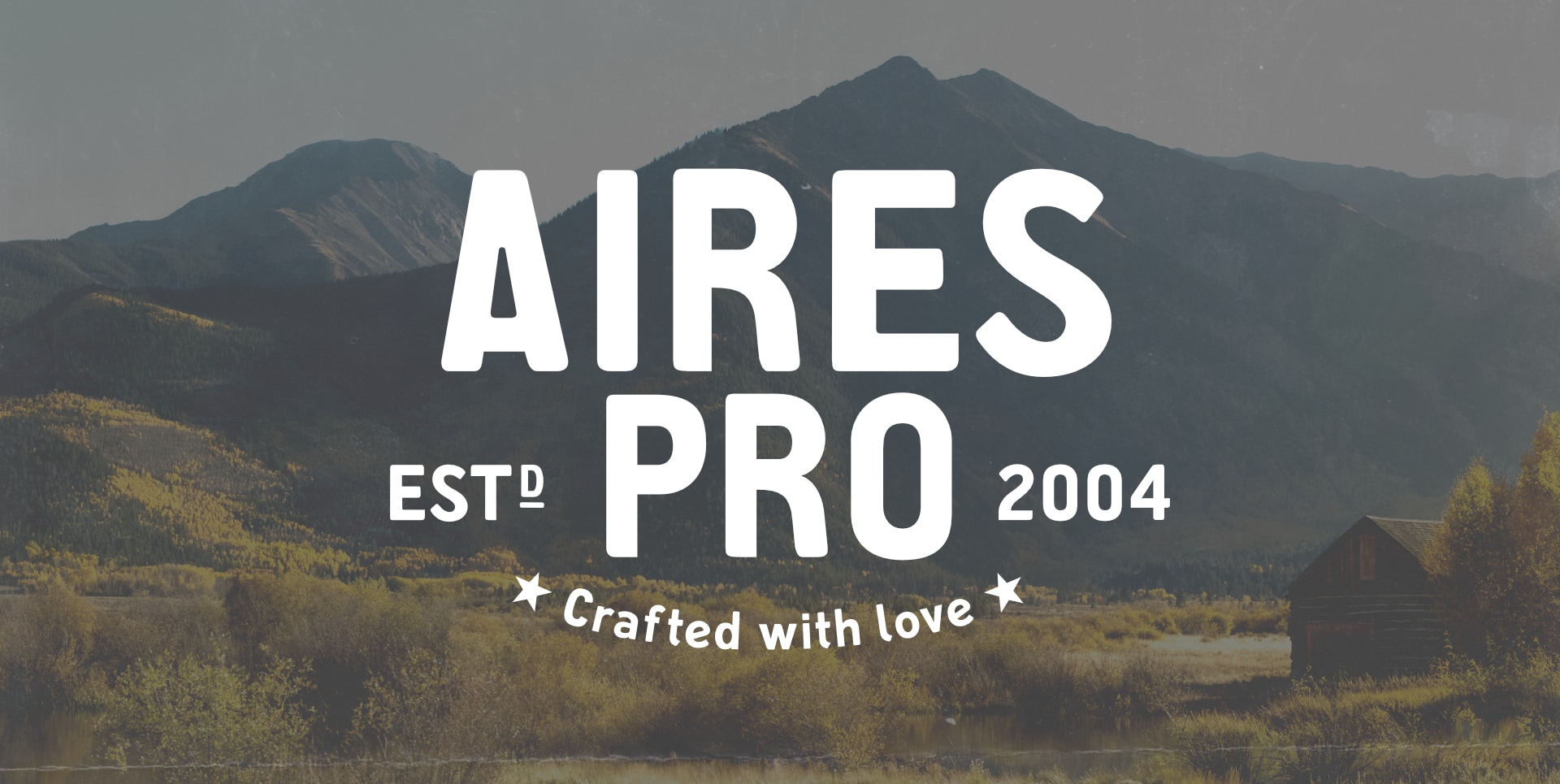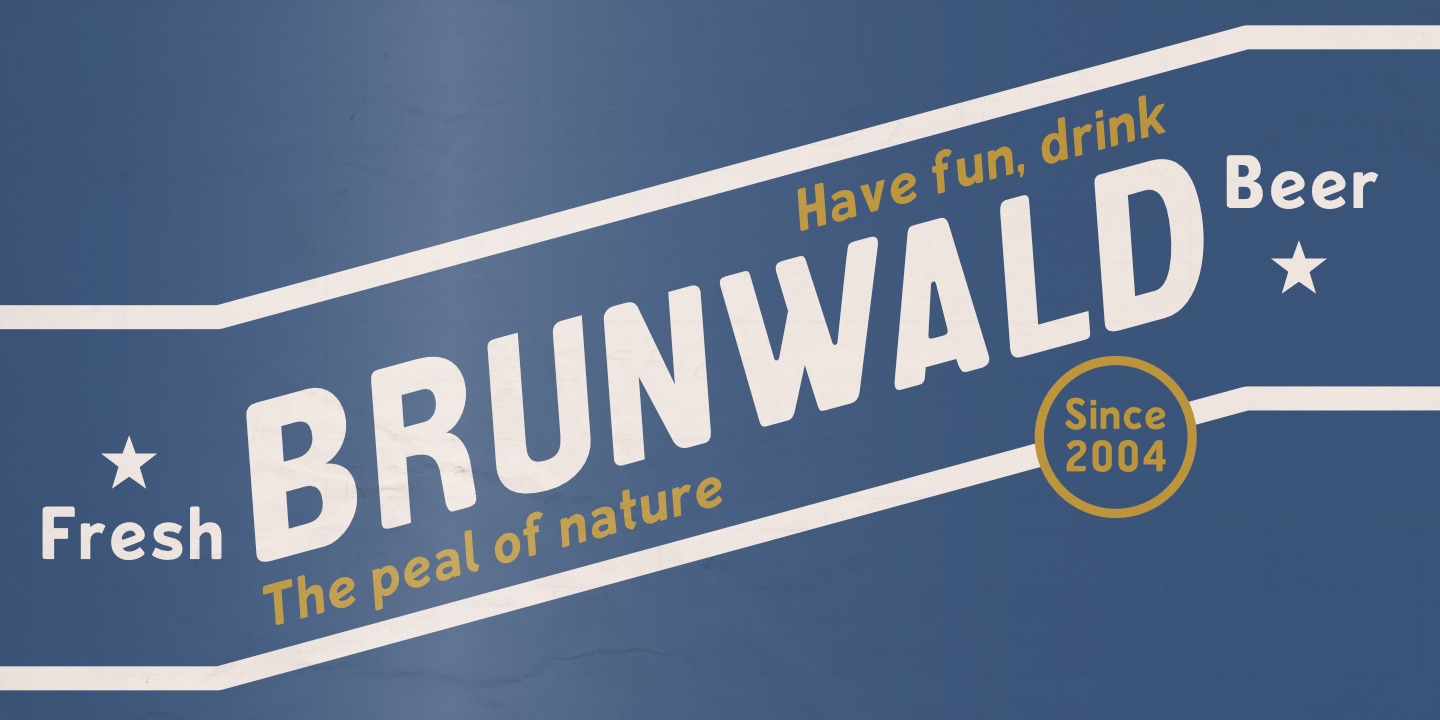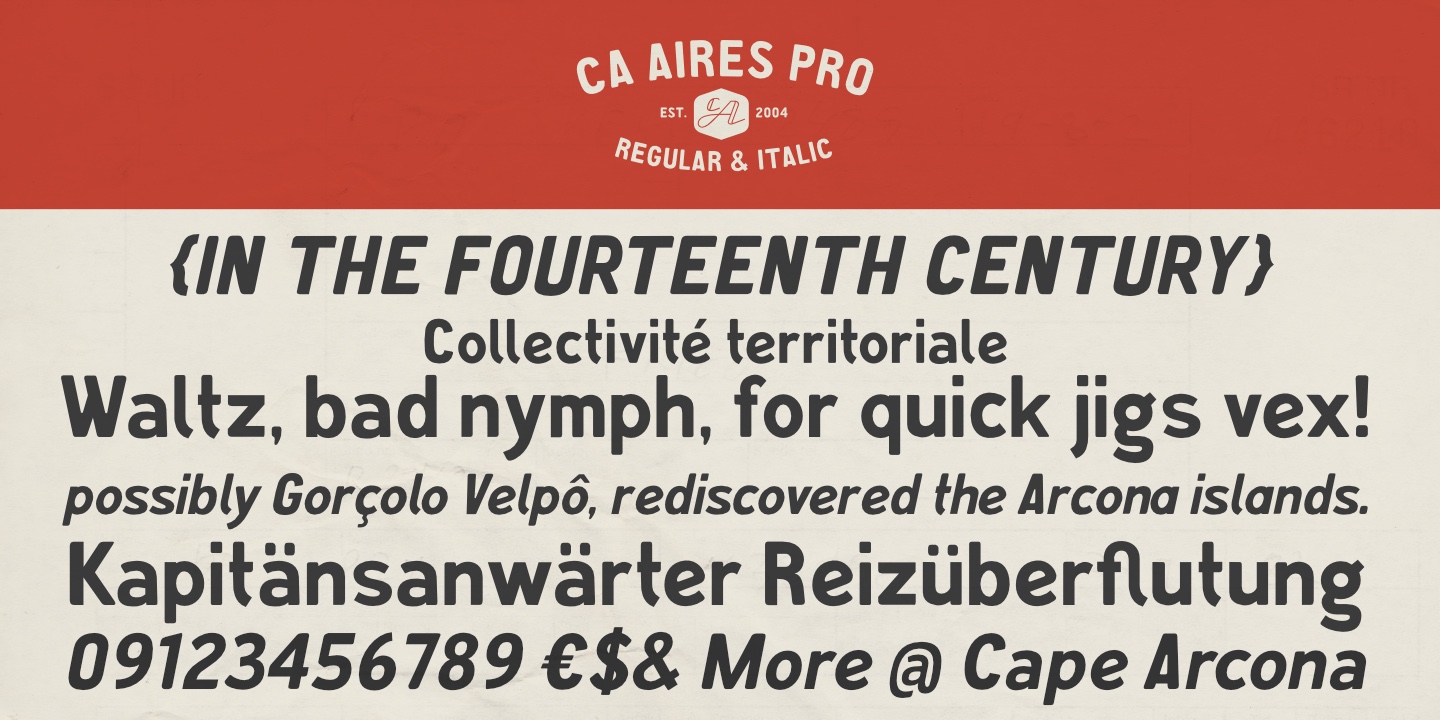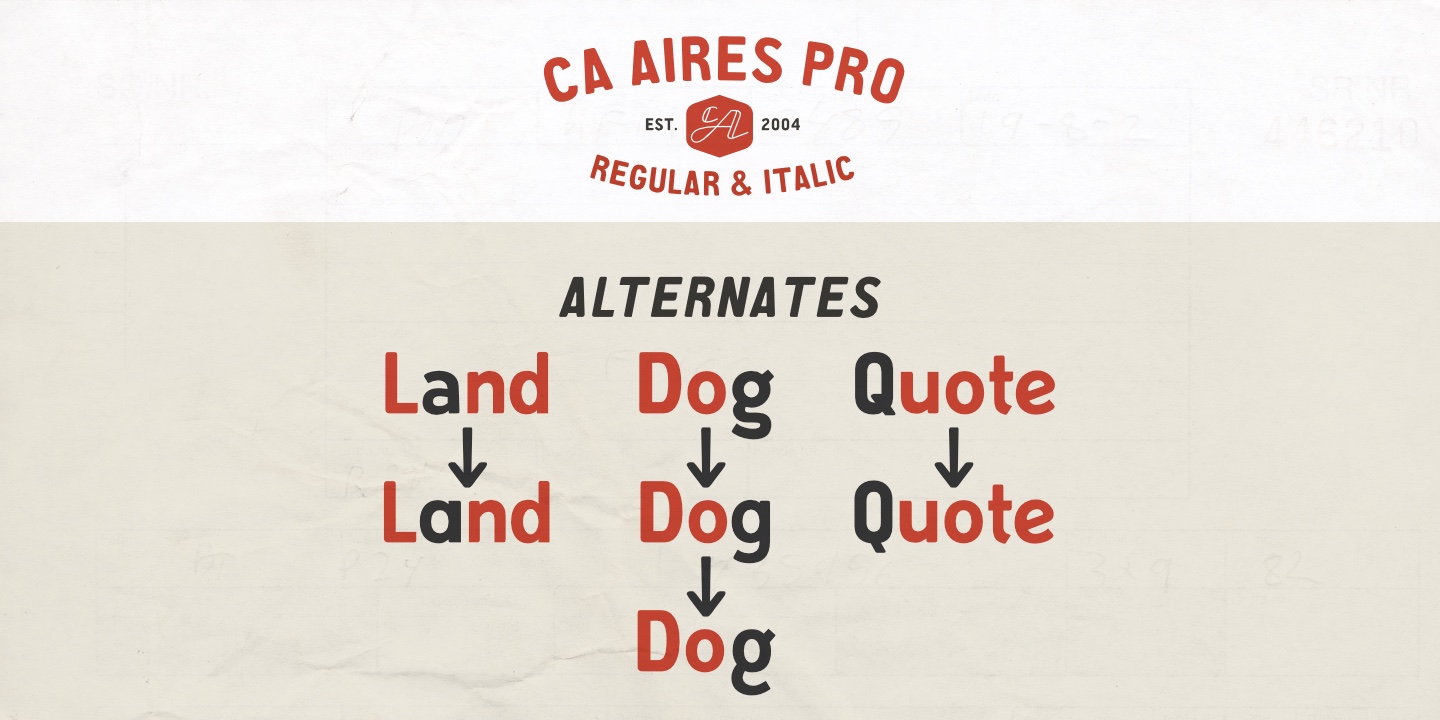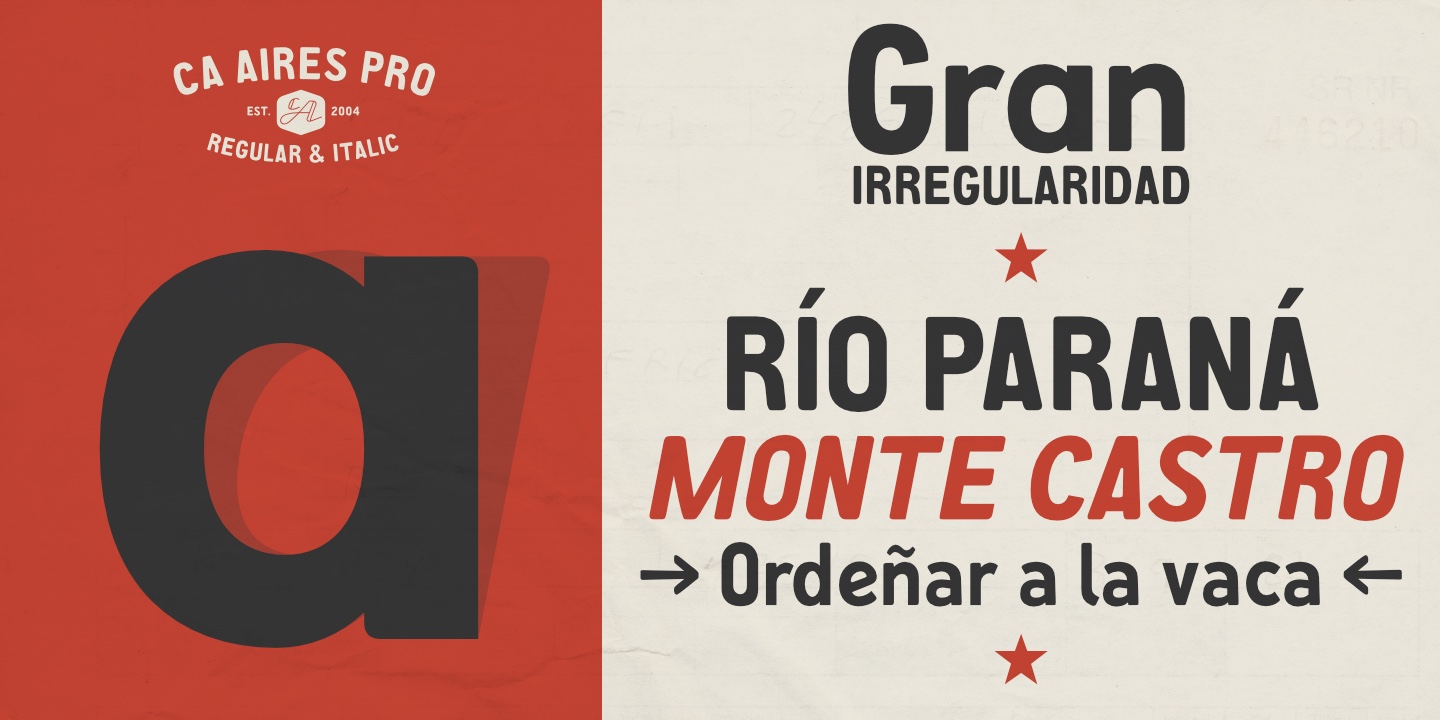
CA Aires Pro draws its inspiration from a 1930s postcard. The simple yet oddly captivating words “BUENOS AIRES” near the stamp sparked the creation of what would become one of Cape Arconas most popular free fonts.
The original design focussed on uppercase letters, whose clean lines and quirky charm resonated with designers. As interest grew, particularly from Spanish-speaking users, we received many requests for a complete character-set. In response, we developed a “Pro” version with lowercase letters that preserved the distinctive personality of the uppercase forms.
To offer even more creative flexibility, we expanded the family with an italic version, adding a touch of expressive flair while staying true to the original spirit.